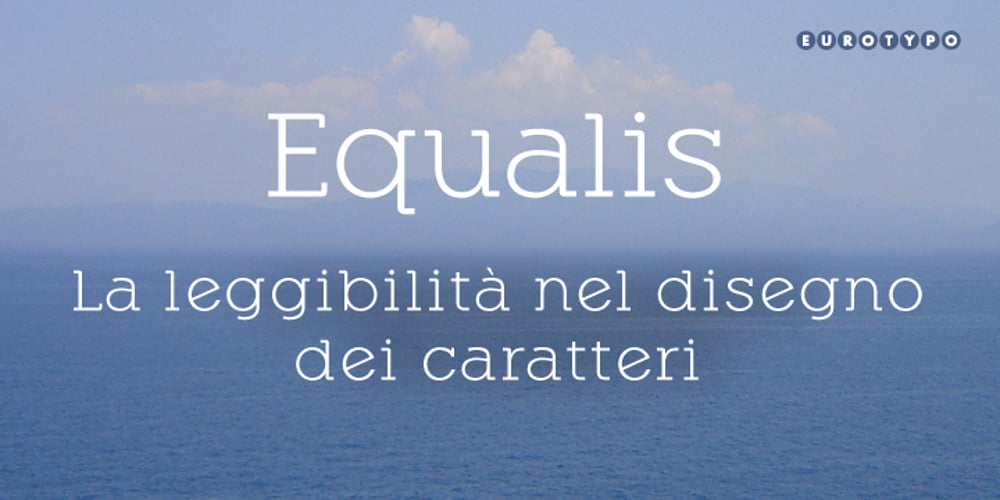
Equalis Font Family was designed by Olcar Alcaide, Juan A. Lavalle and published by Eurotypo. Equalis contains 5 styles and family package options. From Latin aequālis (equal). The case conveying an equality with another noun. Equalis, sets its sights on applied mathematics. Equalis is a slab-serif typeface characterized by a tall x-height and very short ascenders / descenders. This OpenType font family comes in two weights and italics, with support for CE languages. Equalis can be used as display type. Suitable for body text, headlines, package & a wide range of projects.